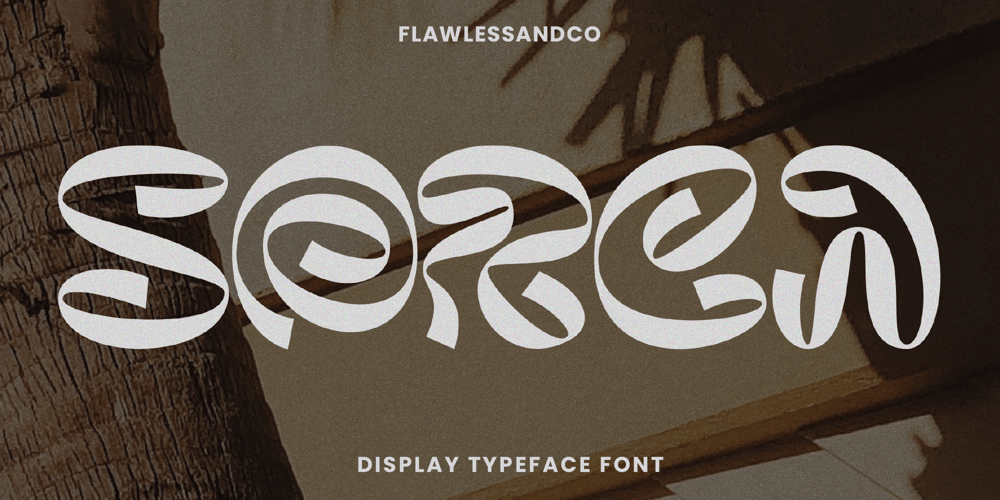
Sorca
Sorca font
Sorca Font Family was designed by Achmad Yani and published by Flawlessandco. Sorca contains 1 styles and family package options. Introducing “Sorca” – A Display Typeface Font. Dive into the world of sophistication and uniqueness with “Sorca,” a captivating display typeface font that is adorned with wavy and distinctive letter details.There’s some connected letters and some alternates that suitable for any graphic designs such as branding materials, t-shirt, print, business cards, logo, poster, t-shirt, photography, quotes .etcThis font support for some multilingual. Also contains uppercase A-Z and lowercase a-z, alternate character, numbers 0-9, and some punctuation.If you need help, just write me! Thanks so much for checking out my shop!